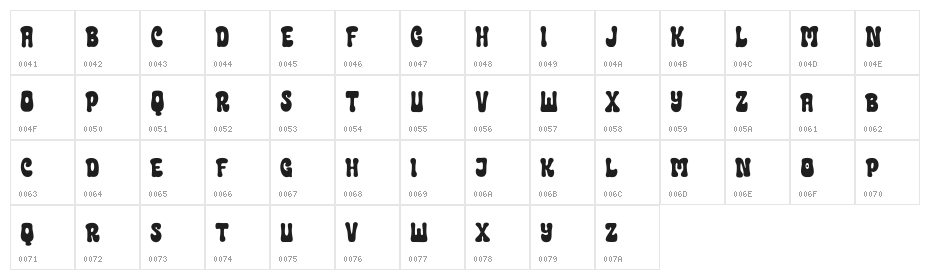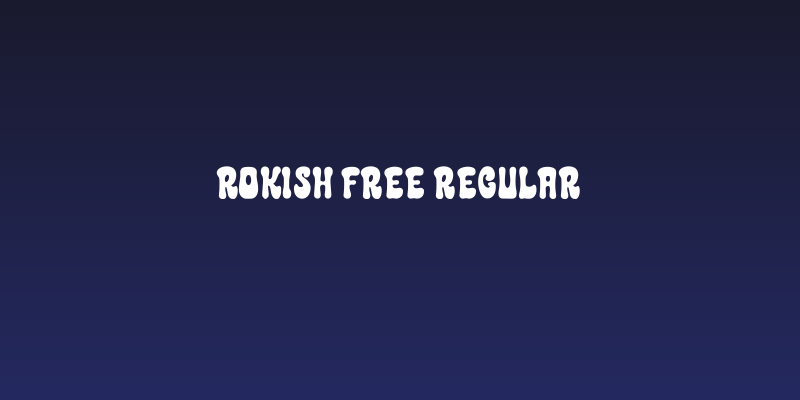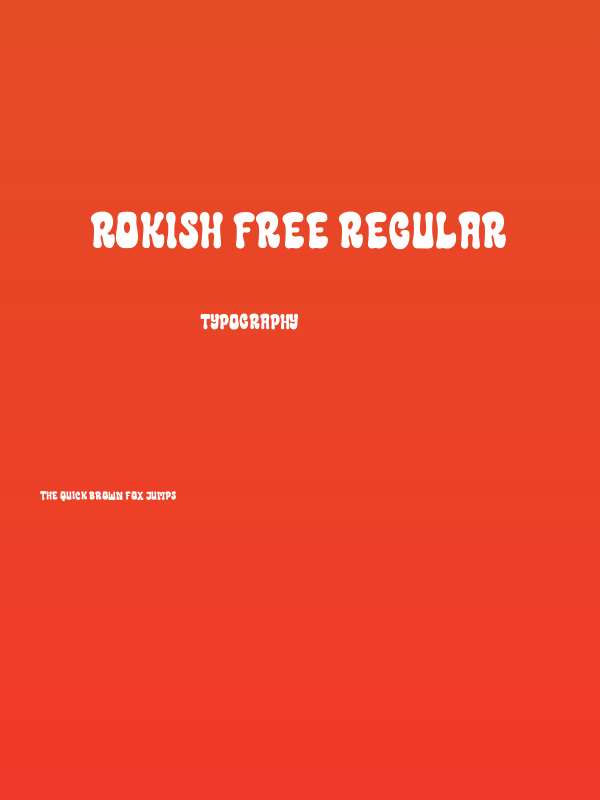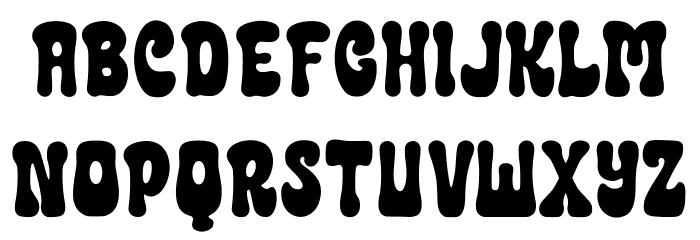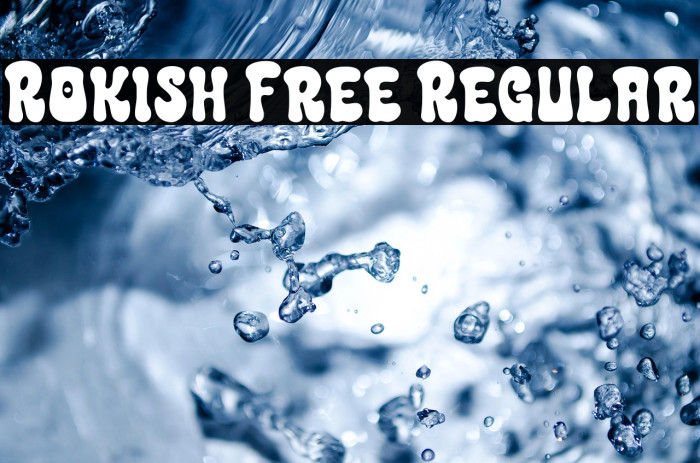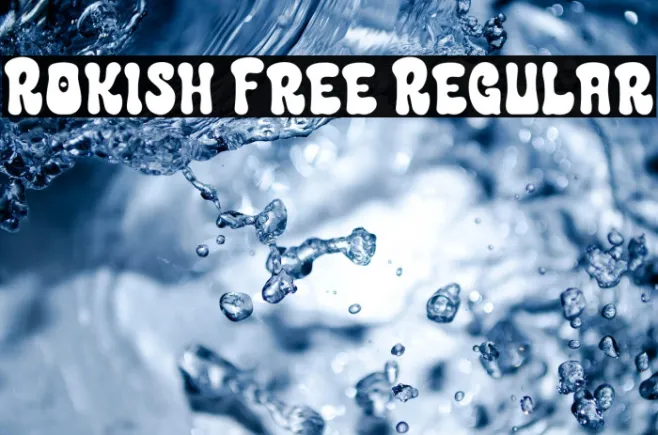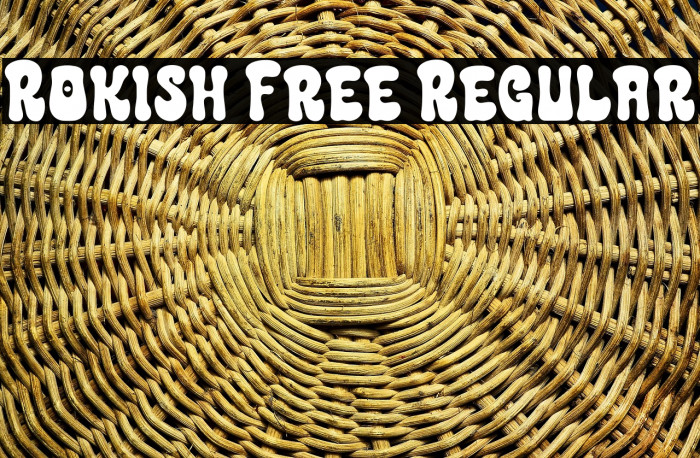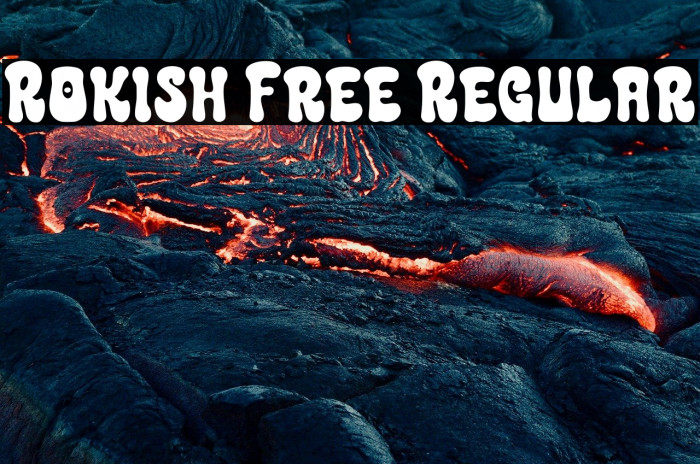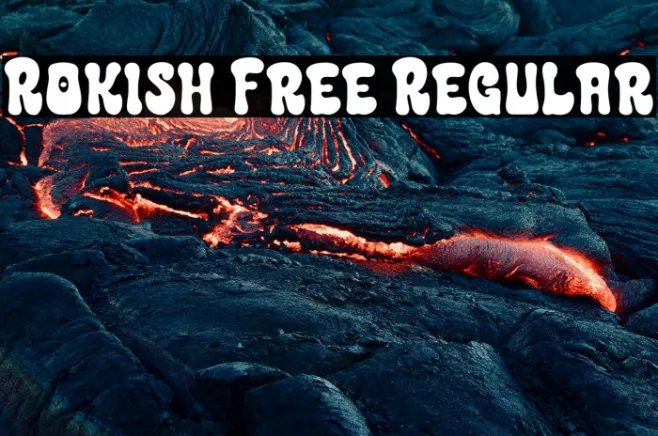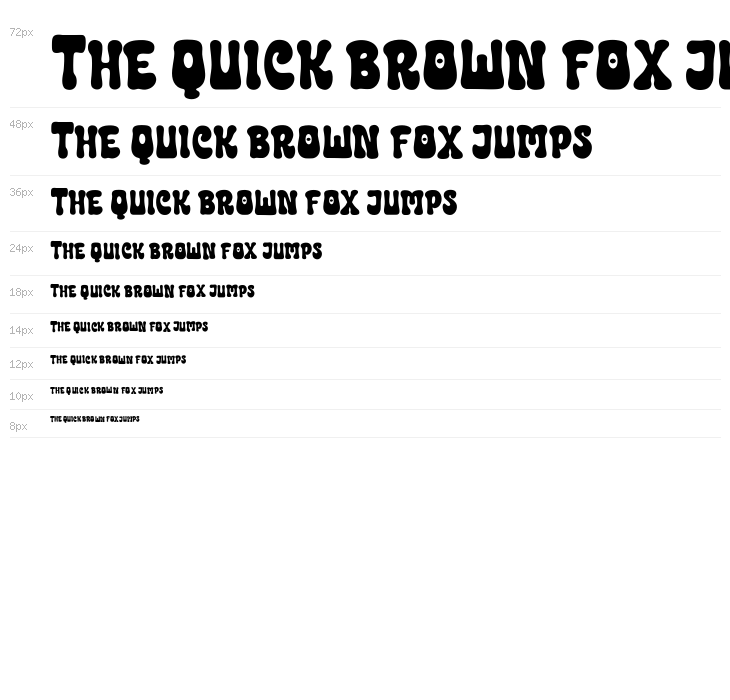
Rokish Free Regular Font
Rokish Free Regular Description
This font features a bold and playful design with rounded, bubbly characters that exude a sense of fun and creativity. The letters are thick and have a soft, almost cartoonish appearance, making them stand out with a unique charm. The overall look is informal and friendly, with a distinctively whimsical style that captures attention. Each character is crafted with a consistent weight, contributing to a cohesive and harmonious appearance. The font's design is reminiscent of retro styles, yet it maintains a modern twist, making it versatile for various creative applications.
| Overall Style | Playful, Retro, Modern |